Character Names and Glyph Names 01: “Characters Have Names”
I think I read the story about Helen Keller’s tutor, Anne Sullivan, taking her out into the garden, splashing water on one of her hands, and spelling out “water” with her fingers on the other hand in my elementary school Japanese textbook. “Everything has a name!”
Characters have names, too. Most modern computers, smartphones, consumer electronics, etc. use a character encoding called Unicode to handle characters, but in Unicode, the name of the Latin alphabet character “A” is “LATIN CAPITAL LETTER A.” Through these “names” and the “numbers (code points)” associated with names, it is possible to precisely distinguish which character is which.
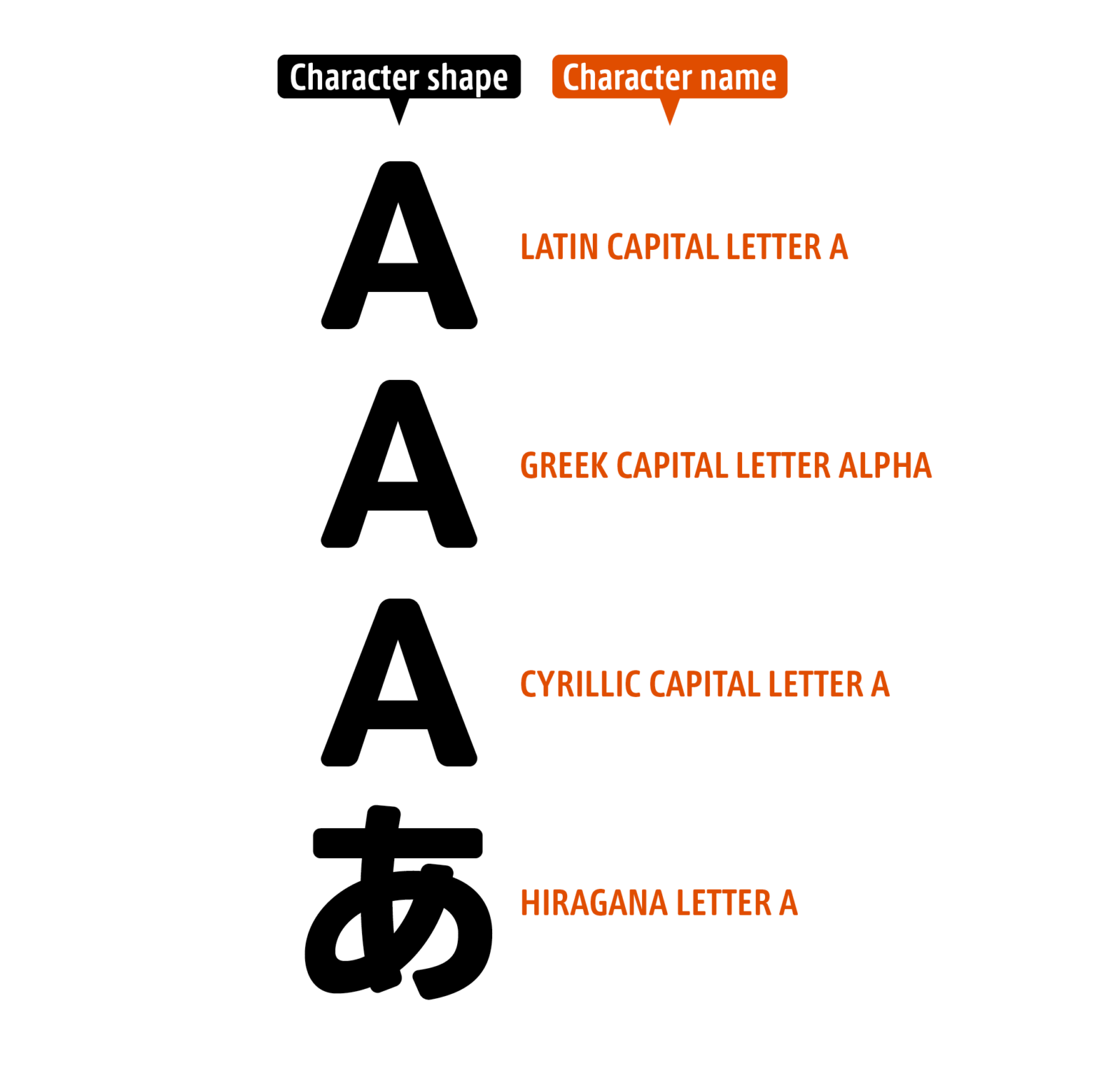
Incidentally, the name for the Greek character “Α (alpha)” is “GREEK CAPITAL LETTER ALPHA,” and the name for the Cyrillic character “А (A)” is “CYRILLIC CAPITAL LETTER A.” When characters look so similar that it’s hard to tell them apart, it’s helpful if they have names. The name for the hiragana character “あ” follows a similar pattern: “HIRAGANA LETTER A,” but of course this “A” refers to the sound “ə,” not the character “A” in the Latin alphabet.
In this series, I’d like to explore the names of characters , which are deeply intertwined with the world of font design.